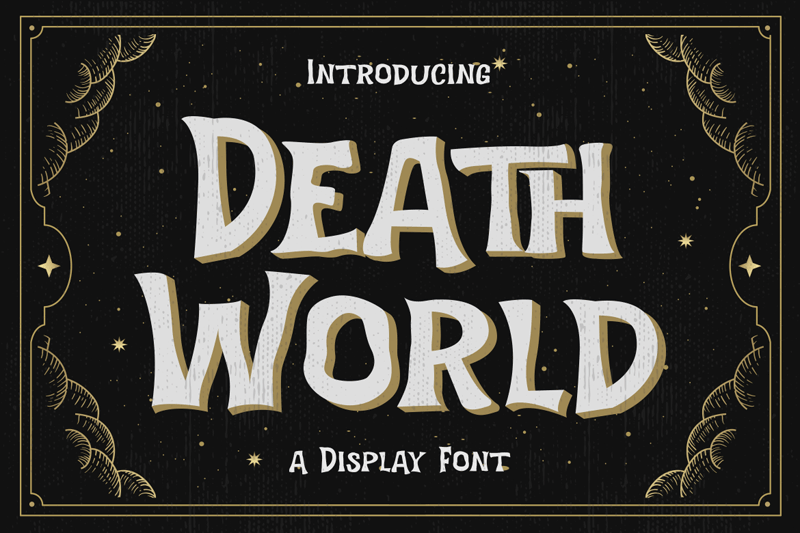
Font name: | Death World |
Author: | Type Factory |
Death World is a fancy display font. It embodies playfulness and authenticity and is the perfect choice for any children activity, fantasy, game font, party invitation, or school project. Add this fun display font to your designs and notice how it makes them come alive! Full Version Download Here : https://typefactory.co/product/death-world-display-font/ https://www.creativefabrica.com/product/death-world/ref/501262/ |